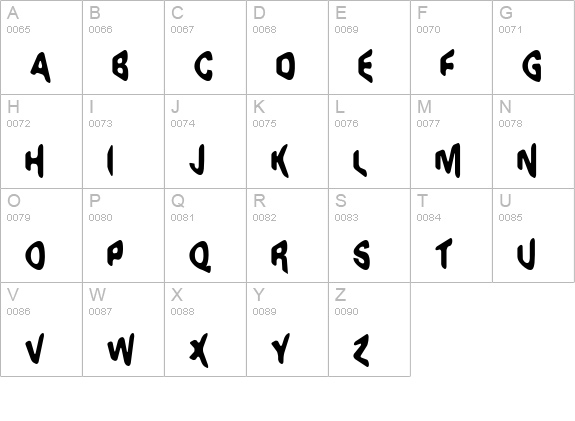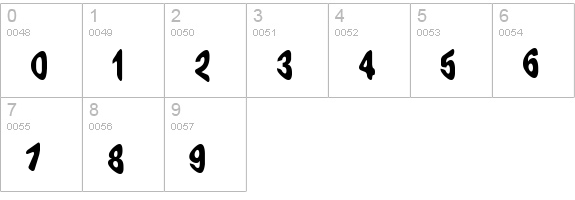
Exaggerate BRK Font Details
Exaggerate BRK font is a bold and eye-catching typeface that will make your designs stand out. With its exaggerated and playful letterforms, this font is perfect for making a statement and grabbing attention. The thick strokes and unique shapes give Exaggerate BRK a modern and dynamic look that is sure to make an impact. The best part? Exaggerate BRK font is completely free to download at FontsMarket.com. Whether you're working on a poster, logo, or social media graphic, this font is a versatile choice that will add a touch of creativity to your project. Don't miss out on the opportunity to enhance your designs with the bold and distinctive Exaggerate BRK font - download it for free today!